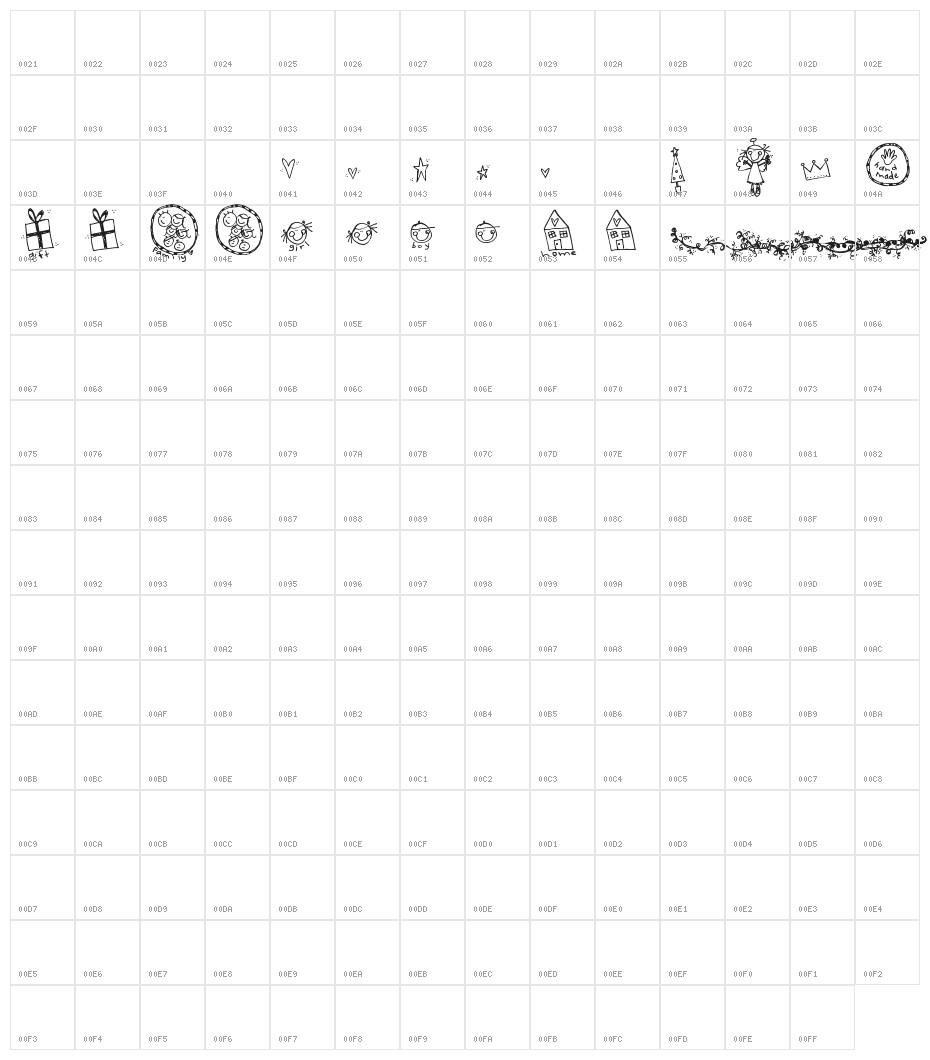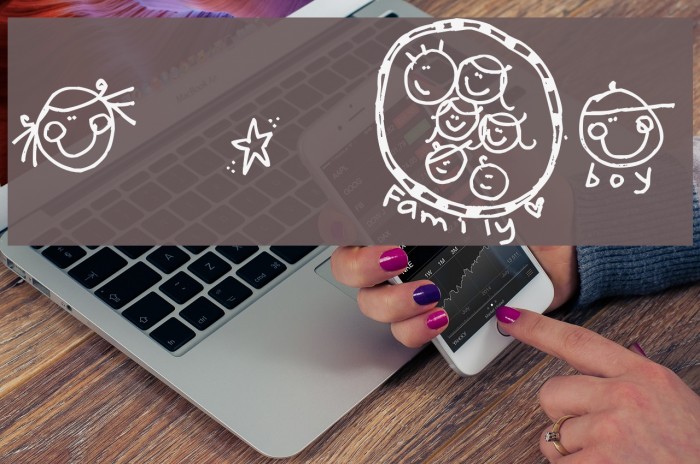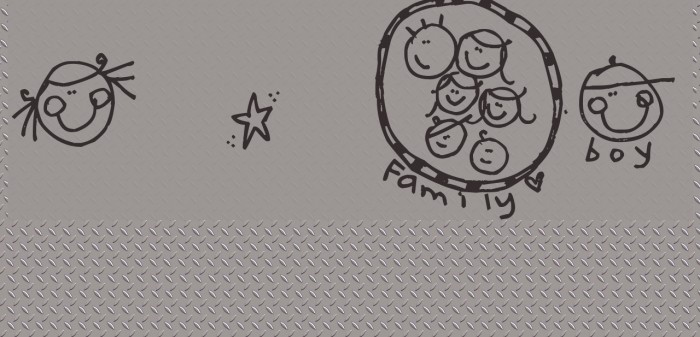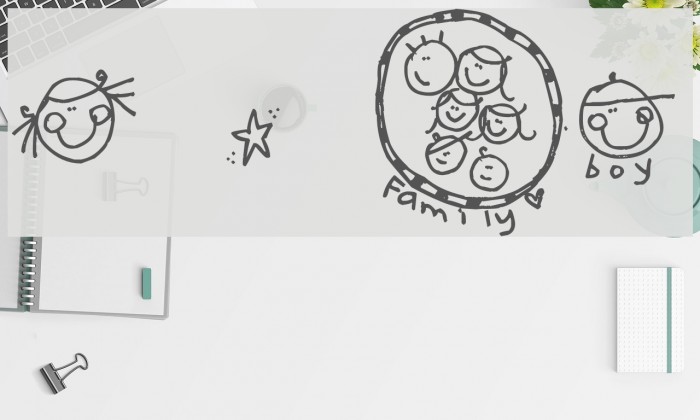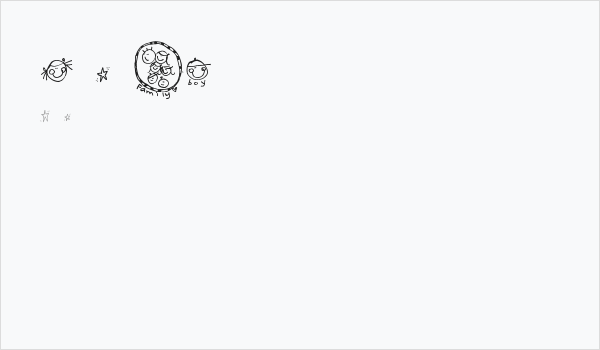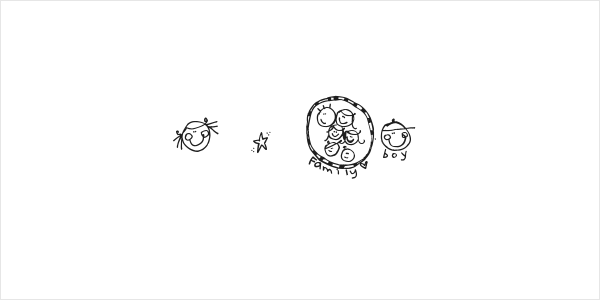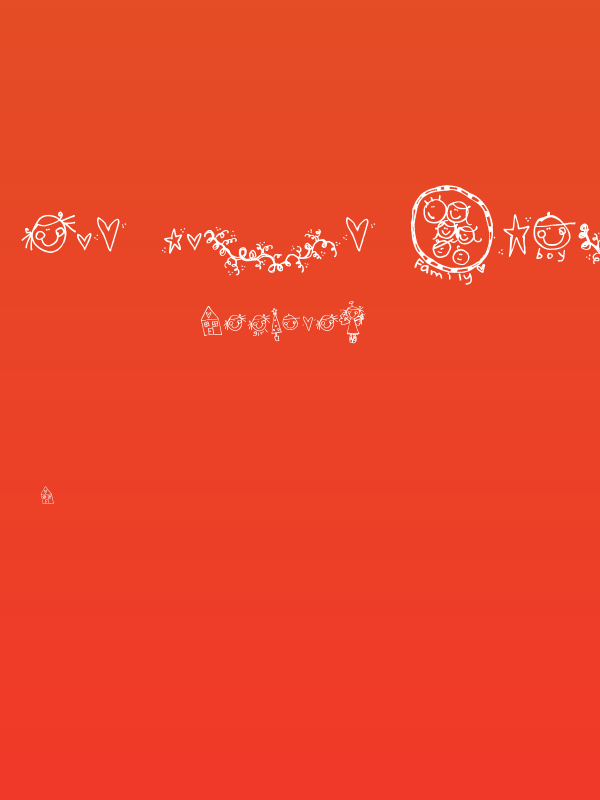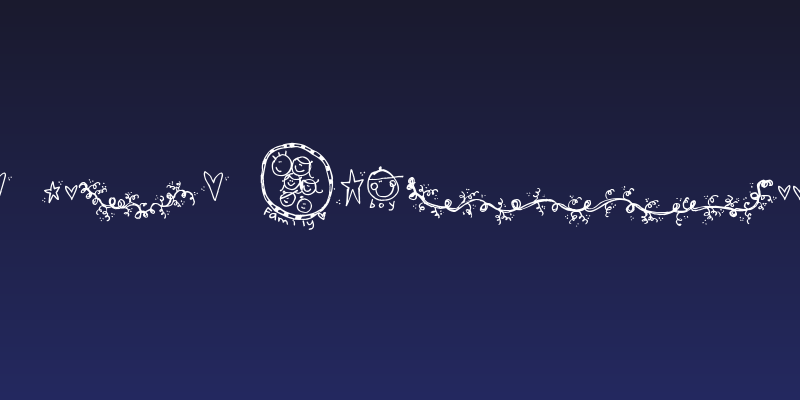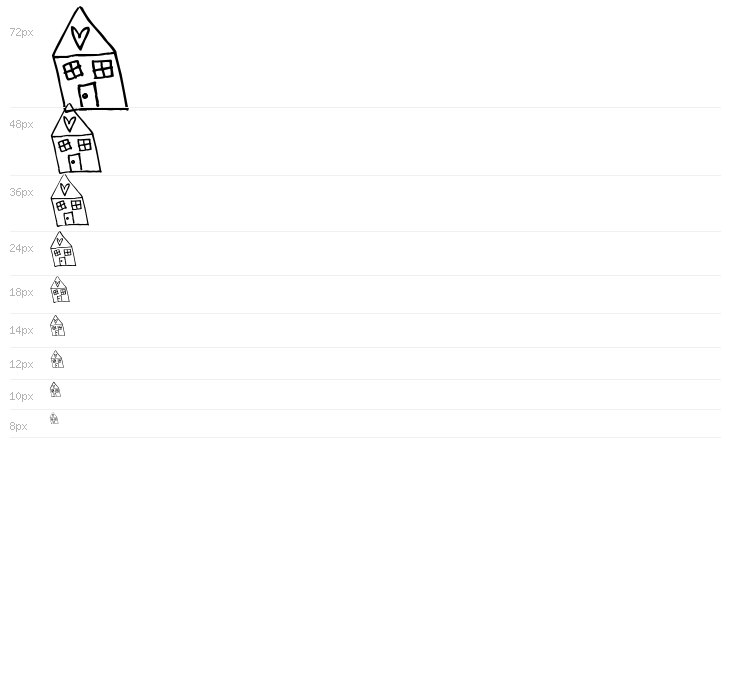
Pea Deva McQueen Font
Pea Deva McQueen Description
This is a whimsical and playful collection of doodles and illustrations, featuring hand-drawn elements such as stars, hearts, a Christmas tree, an angel, a crown, and gift boxes. The style is childlike and charming, with a homemade feel, as indicated by the 'handmade' label. The illustrations include a family portrait, individual faces labeled 'girl' and 'boy', and houses labeled 'home'. A decorative vine-like border adds to the playful and casual aesthetic. The overall design is perfect for adding a personal and creative touch to projects.
| Overall Style | Playful, Whimsical, Hand-drawn |
| Use Case | Decorative elements, Illustrations, Crafts |
| Proposed Projects | Ideal for greeting cards, children's book illustrations, scrapbooking, and DIY crafts. |